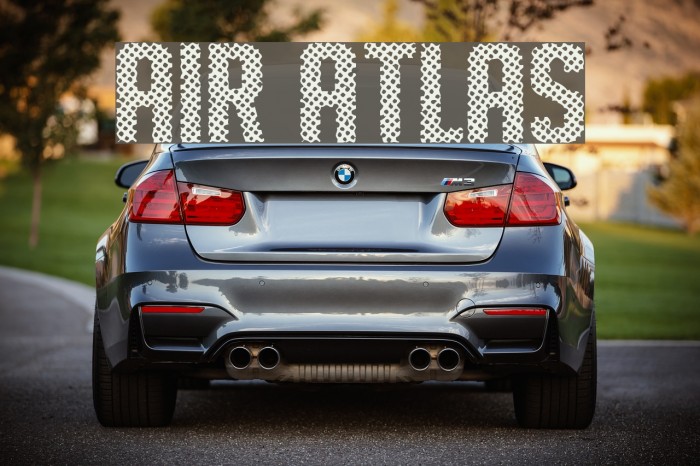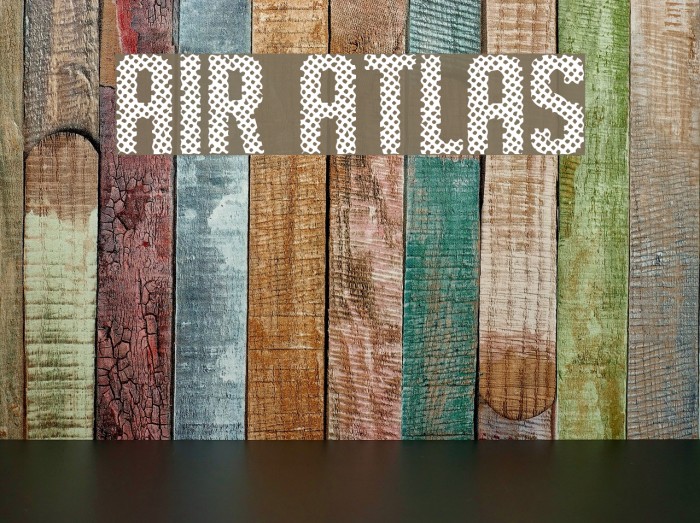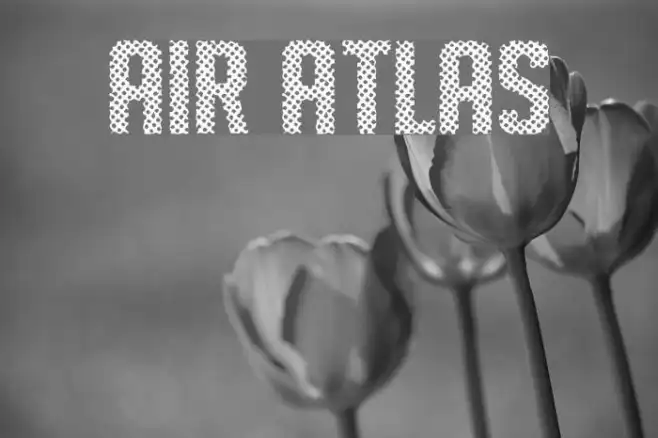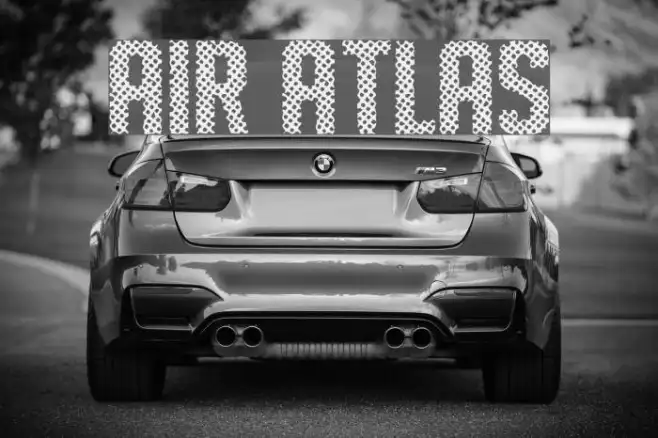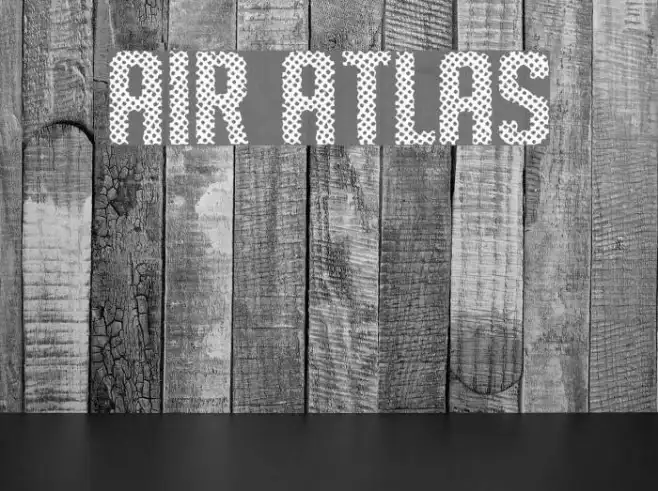
Air Atlas Font
This font features a bold, decorative style with a unique pattern of small dots filling each character, creating a textured appearance. The uppercase letters are uniform in height and width, giving a strong and consistent look. The numbers and special characters maintain this dotted pattern, ensuring a cohesive design throughout. The font's distinct style makes it stand out, ideal for projects that require a bold statement. Its geometric structure and decorative elements suggest a modern yet playful aesthetic.
A bold, decorative font with a unique dotted pattern filling each character.
- Proposed Projects: Ideal for posters, branding, and headlines where a bold and unique style is desired.
- Overall Style: Modern, Decorative